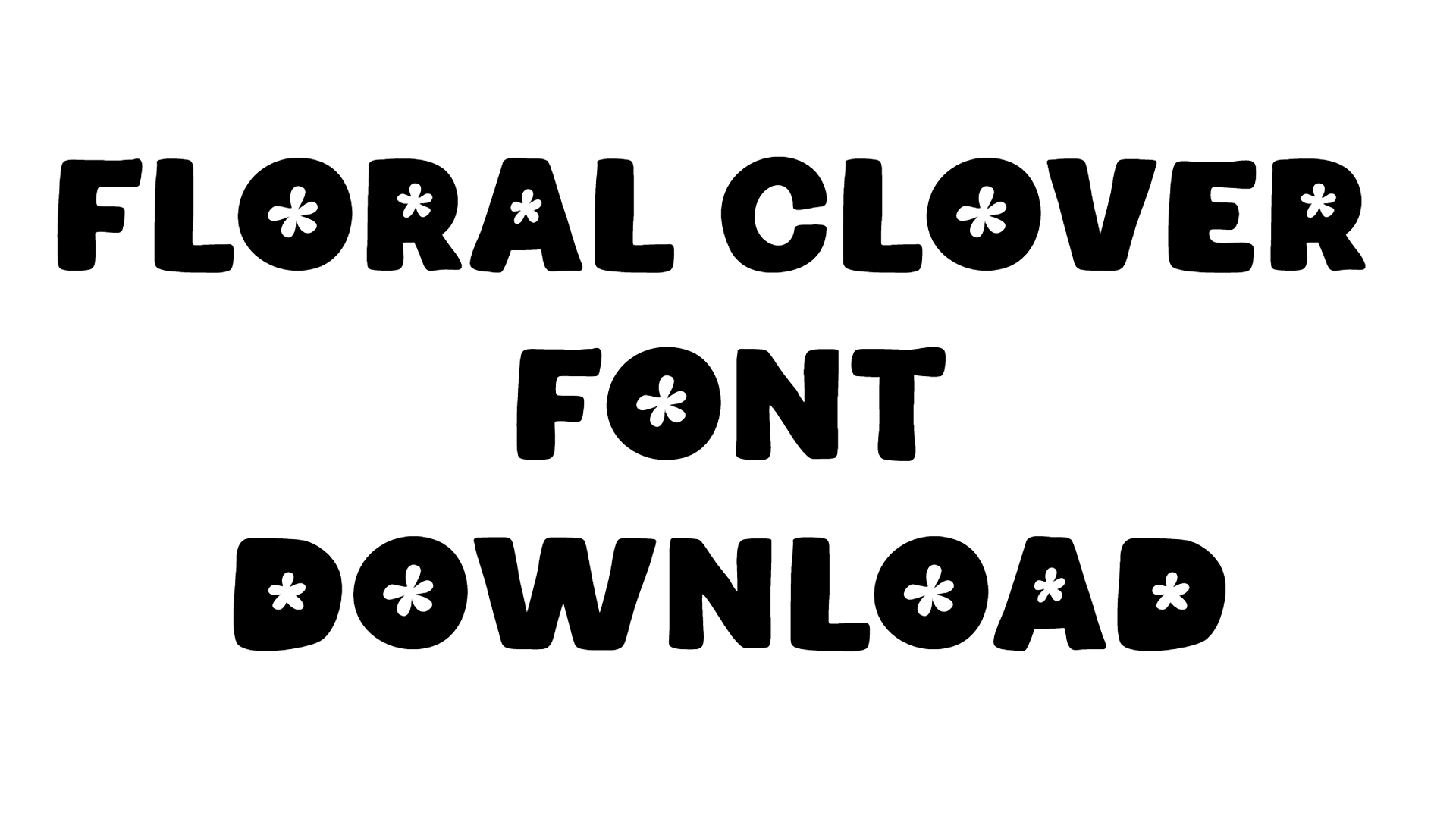
Floral Clover Font
Floral Clover
Floral Clover is a cartoon font designed by MJType (Muhamad Junaid). It has a cheerful, hand-drawn look that makes people smile before they even read the words. You can download it for free and test it with your own words in the preview above.
What You Can Type With Floral Clover
Floral Clover covers the full alphabet in upper and lowercase, plus all ten numbers, so you can set names, dates and prices without switching fonts. Everyday marks like &, !, ? and @ are there too. Thanks to its accented letters, it also works for Spanish, French, German, Portuguese and Italian, not just English.
Where Floral Clover Works Best
Designers usually reach for fonts like Floral Clover when they're making kids' books, birthday invites and fun YouTube thumbnails. Cartoon fonts are great for short, fun lines. If you place it over a busy photo, add a thick outline or a drop shadow so it stays readable.
Does Floral Clover support accented letters?
Yes. Floral Clover includes the accented letters needed for Spanish, French, German, Portuguese and Italian, so it works for more than just English.